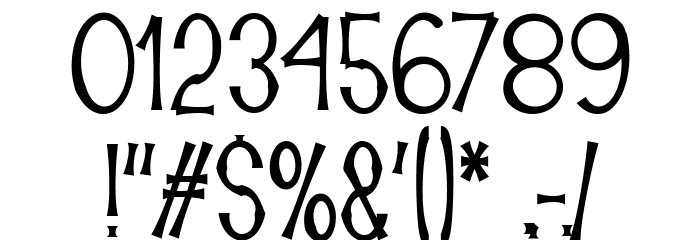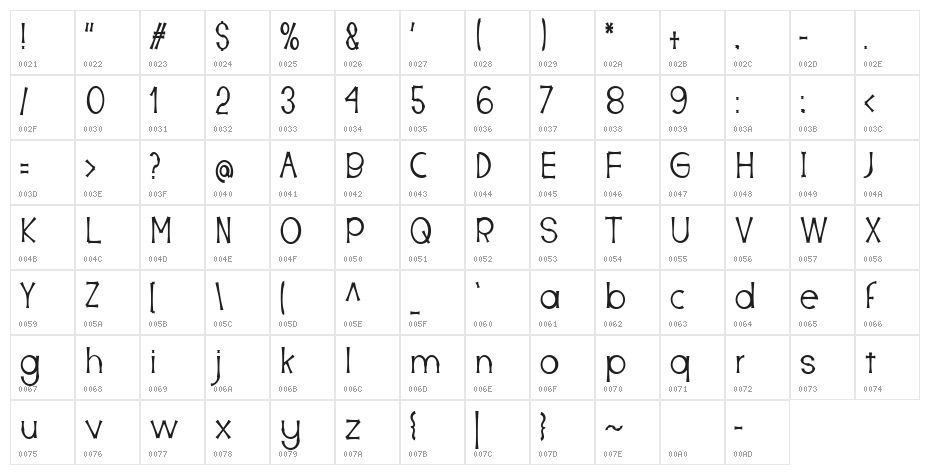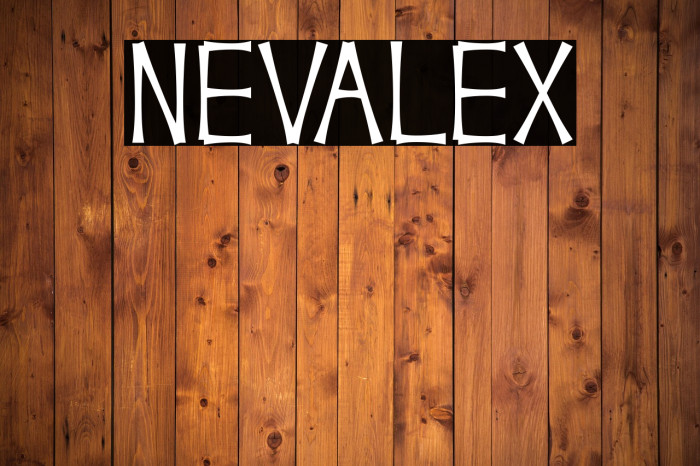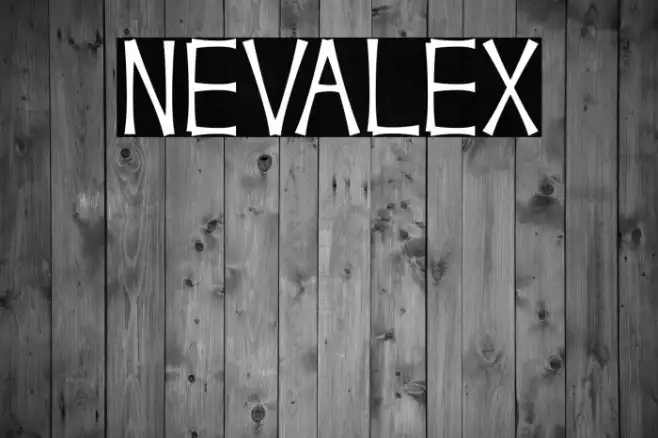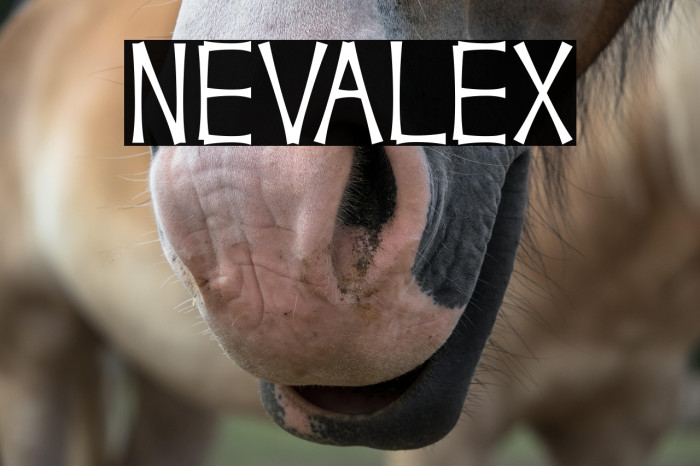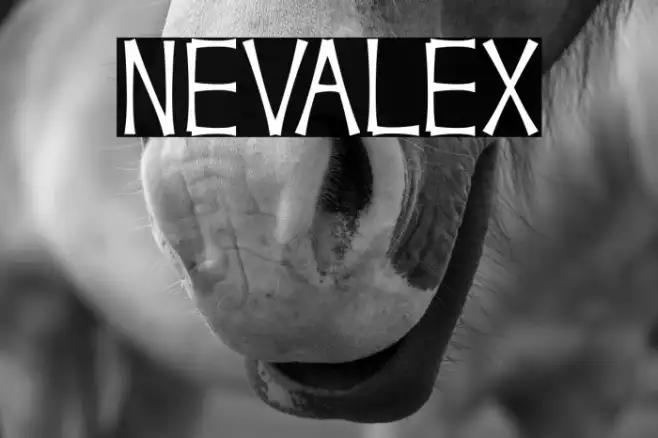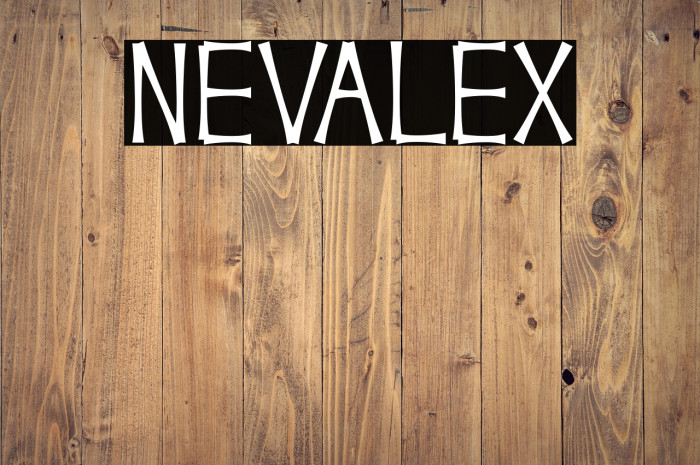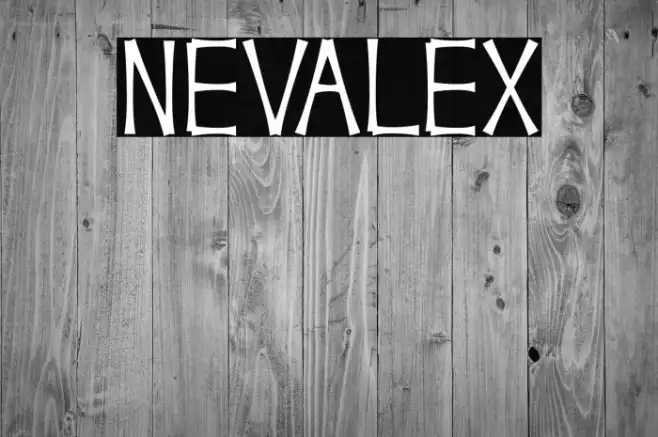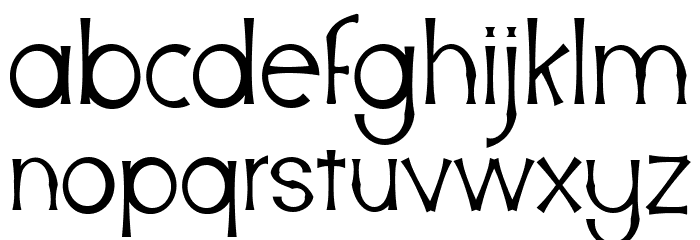
NEVALEX Font
NEVALEX Description
This font features a unique and artistic style with a hand-drawn appearance. The characters have an irregular, slightly whimsical look, with varying stroke widths that give it a dynamic and lively feel. The uppercase letters are bold and prominent, while the lowercase letters maintain a consistent style with a playful twist. The numerals are distinct and easy to read, matching the overall aesthetic of the font. Special characters are creatively designed, adding to the font's charm. This font is perfect for projects that require a touch of creativity and individuality.
| Overall Style | Artistic, Whimsical |
| Use Case | Headlines, Posters, Artistic Branding |
| Proposed Projects | Ideal for creative projects such as posters, invitations, and artistic branding. |